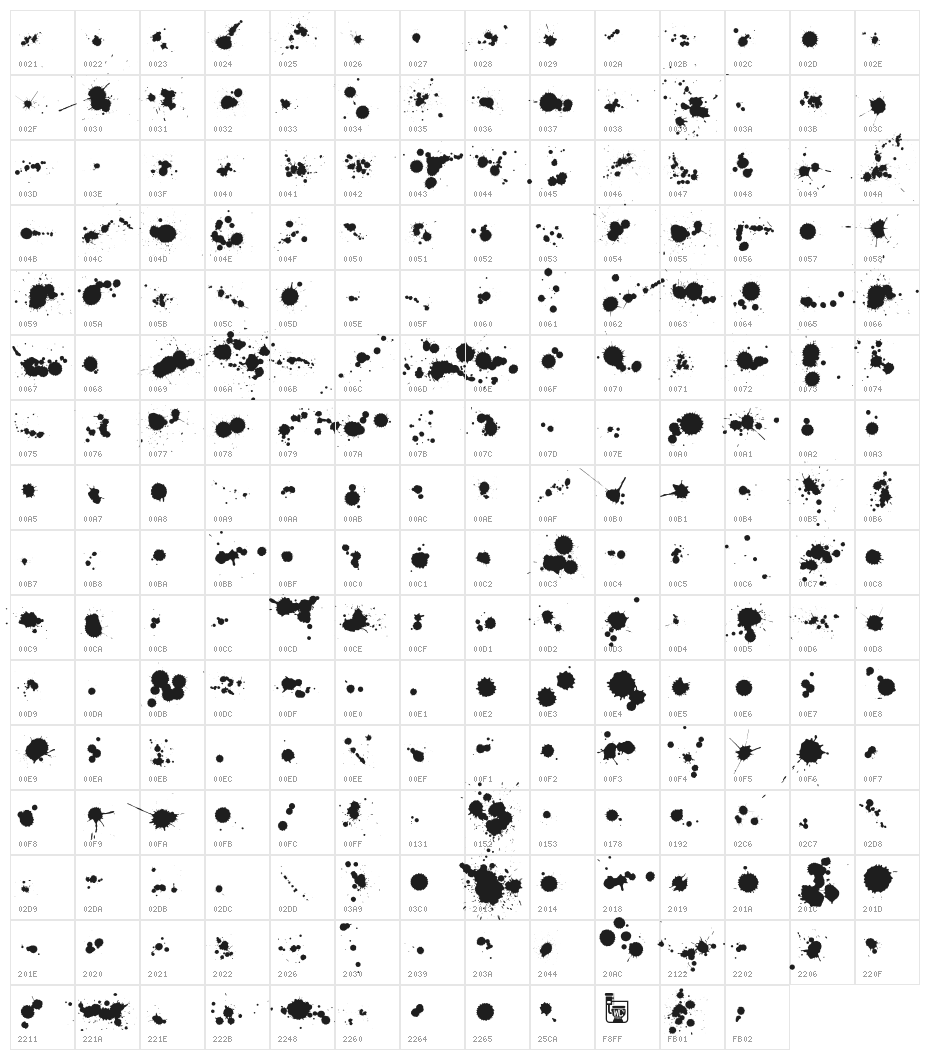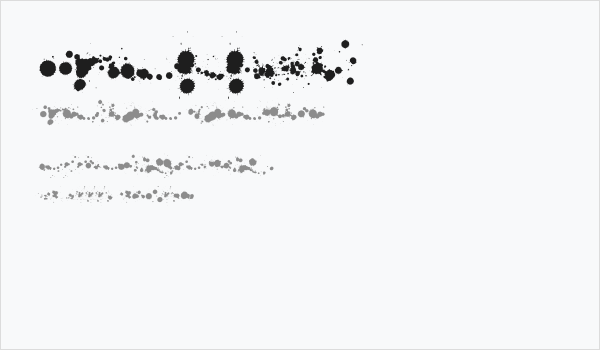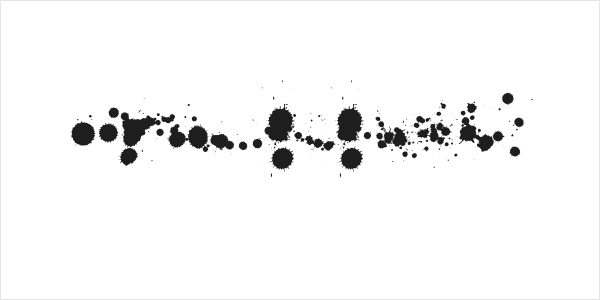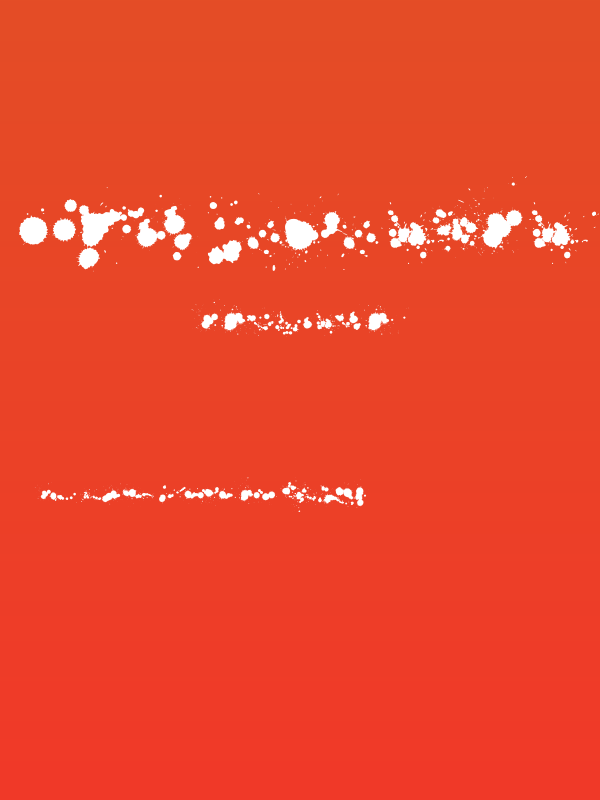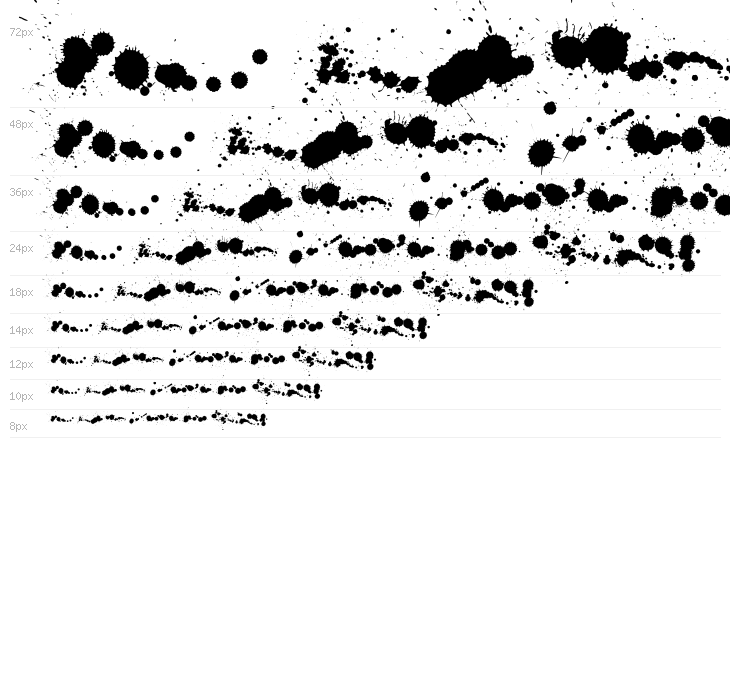
WCRhesusABta Font
WCRhesusABta Description
This font features a unique and artistic design, characterized by splatters and irregular shapes that resemble ink blots. Each character is distinct, with varying sizes and forms, creating a dynamic and chaotic appearance. The font lacks uniformity, with each letter and symbol appearing as if it was created by a splash of ink on paper. This style gives it a raw, expressive quality that stands out and captures attention. The irregularity and randomness of the shapes contribute to its artistic and unconventional appeal, making it suitable for creative and bold design projects.
| Overall Style | Artistic, Expressive |
| Use Case | Logos, Posters, Artistic Designs |
| Proposed Projects | Ideal for artistic projects, album covers, posters, and any design that requires a bold, expressive touch. |